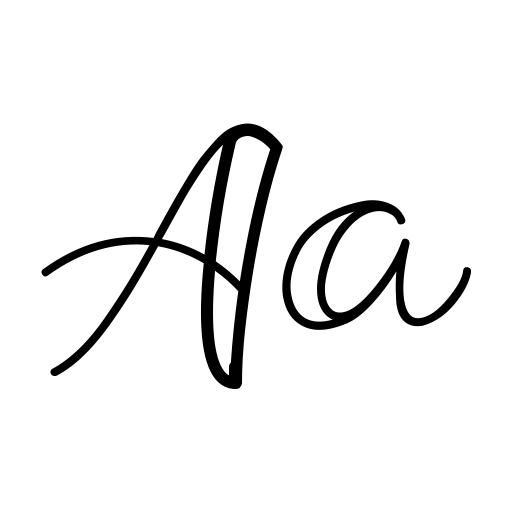
Bargeritho is a delicate and playful script font characterized by its thin, flowing strokes and lively, hand-drawn feel. Its tall, narrow letterforms with subtle loops and curls give it a whimsical and elegant personality, making it ideal for creative projects like invitations, branding, and decorative headlines where a friendly yet refined touch is desired. This font works best in display settings, adding charm and sophistication without overwhelming the design.
Bargeritho Font